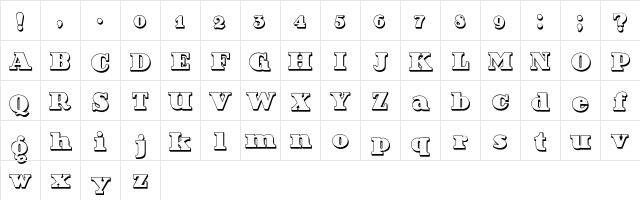
Decorattio 3D Regular
Design Context for Decorattio 3D Typeface
Decorattio 3D is a composed and adaptable typeface that performs quietly and consistently across a wide range of design contexts.
Pro Tip: Use Decorattio 3D in both headline and body roles to test its range before committing to a single application.